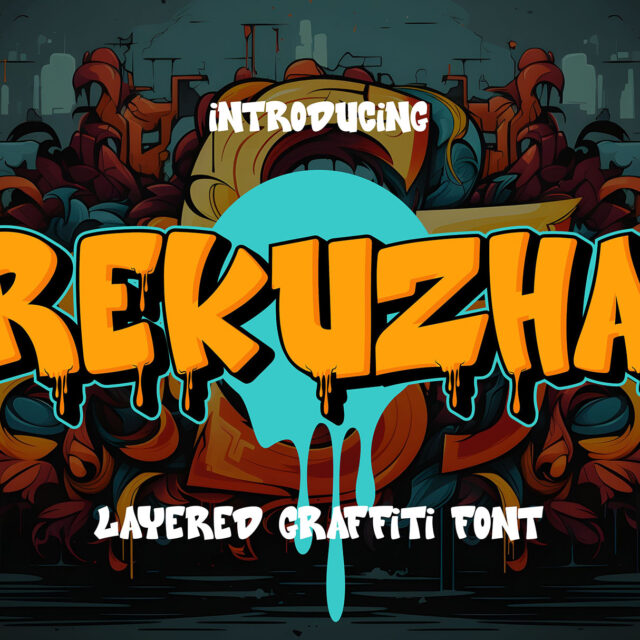
Rekuzha
"Rekuzha" is a 3D layered graffiti font characterized by thick characters. Fonts in this style typically feature bold and expressive letterforms with substantial strokes, creating a visually impactful…
About Rekuzha
“Rekuzha” is a 3D layered graffiti font characterized by thick characters. Fonts in this style typically feature bold and expressive letterforms with substantial strokes, creating a visually impactful appearance. Additionally, being a layered font, “Rekuzha” offers the ability to stack different styles on top of each other, allowing for creative experimentation and depth in design.
With its thick characters and layered design, “Rekuzha” is well-suited for projects that demand bold and attention-grabbing typography, such as posters, headlines, or urban-themed designs. Its three-dimensional effect adds depth and visual interest, making it a versatile choice for various graphic design applications.